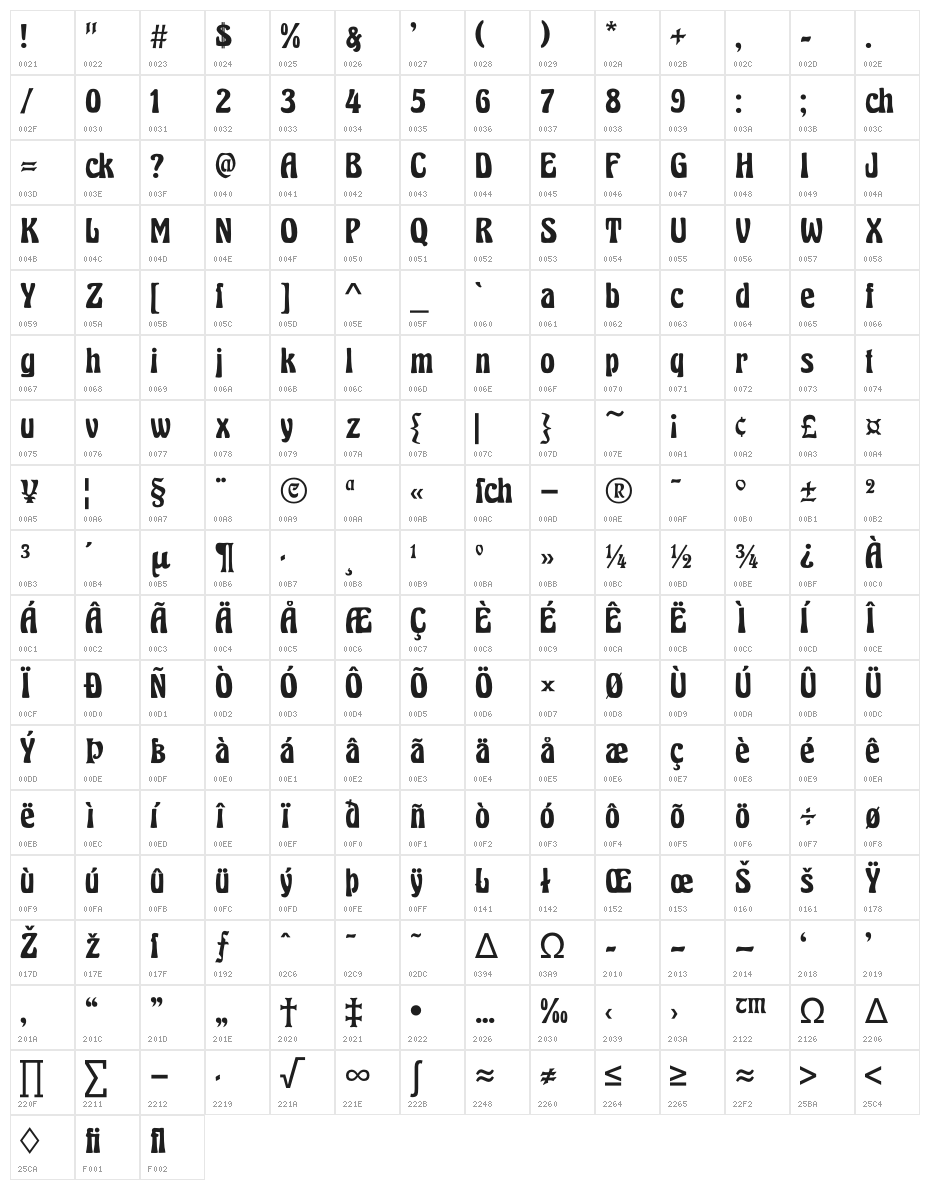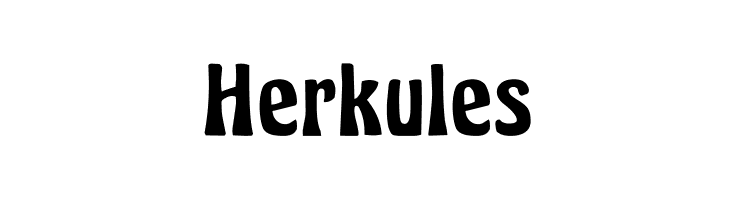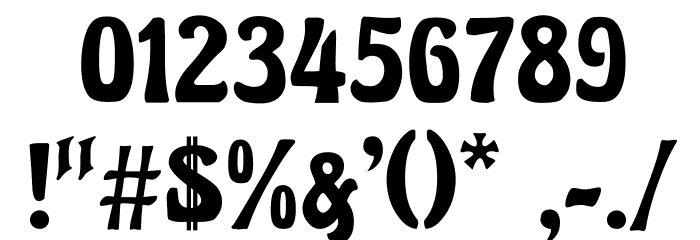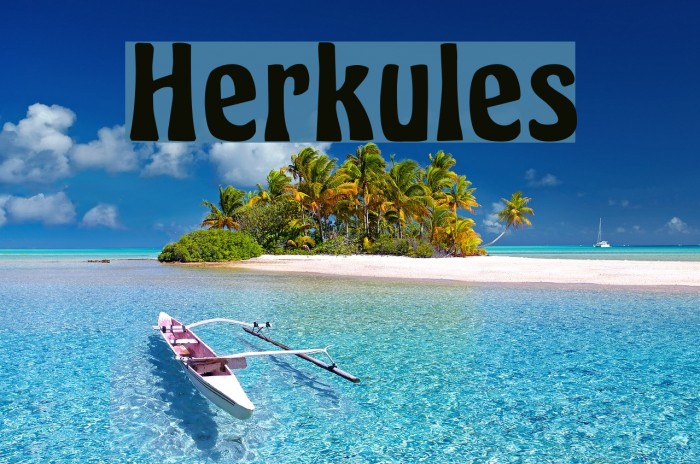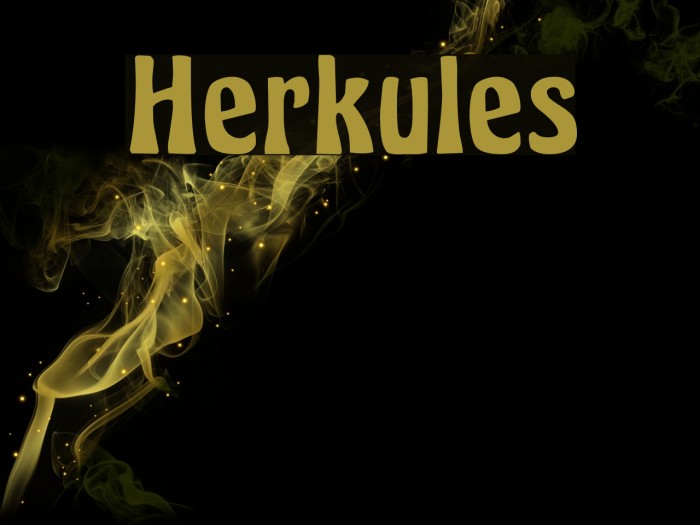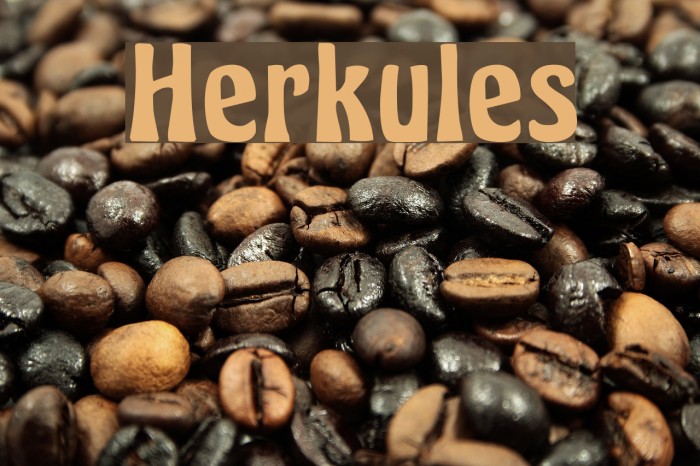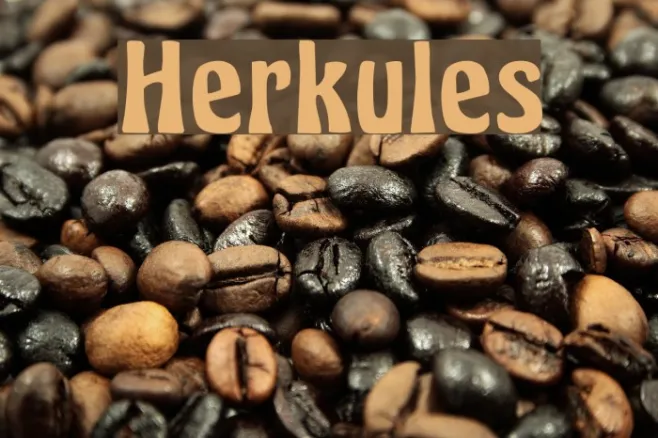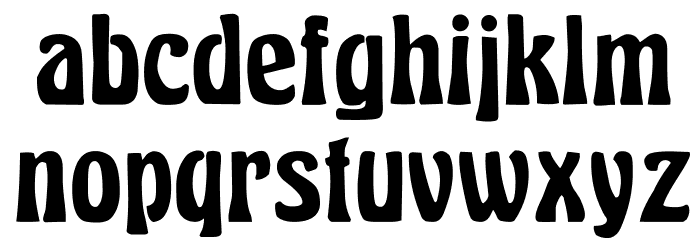
Herkules Font
Herkules Description
This font features a bold and playful design with a strong presence. The characters have a slightly irregular shape, giving them a hand-drawn feel. The strokes are thick and consistent, creating a sense of stability and strength. The overall appearance is both whimsical and robust, making it suitable for eye-catching designs. The numbers and special characters maintain the same playful style, ensuring consistency across all elements.
| Overall Style | Playful, Whimsical |
| Use Case | Headlines, Posters, Branding |
| Proposed Projects | Ideal for children's books, playful branding, posters, and creative projects that require a bold and fun typeface. |